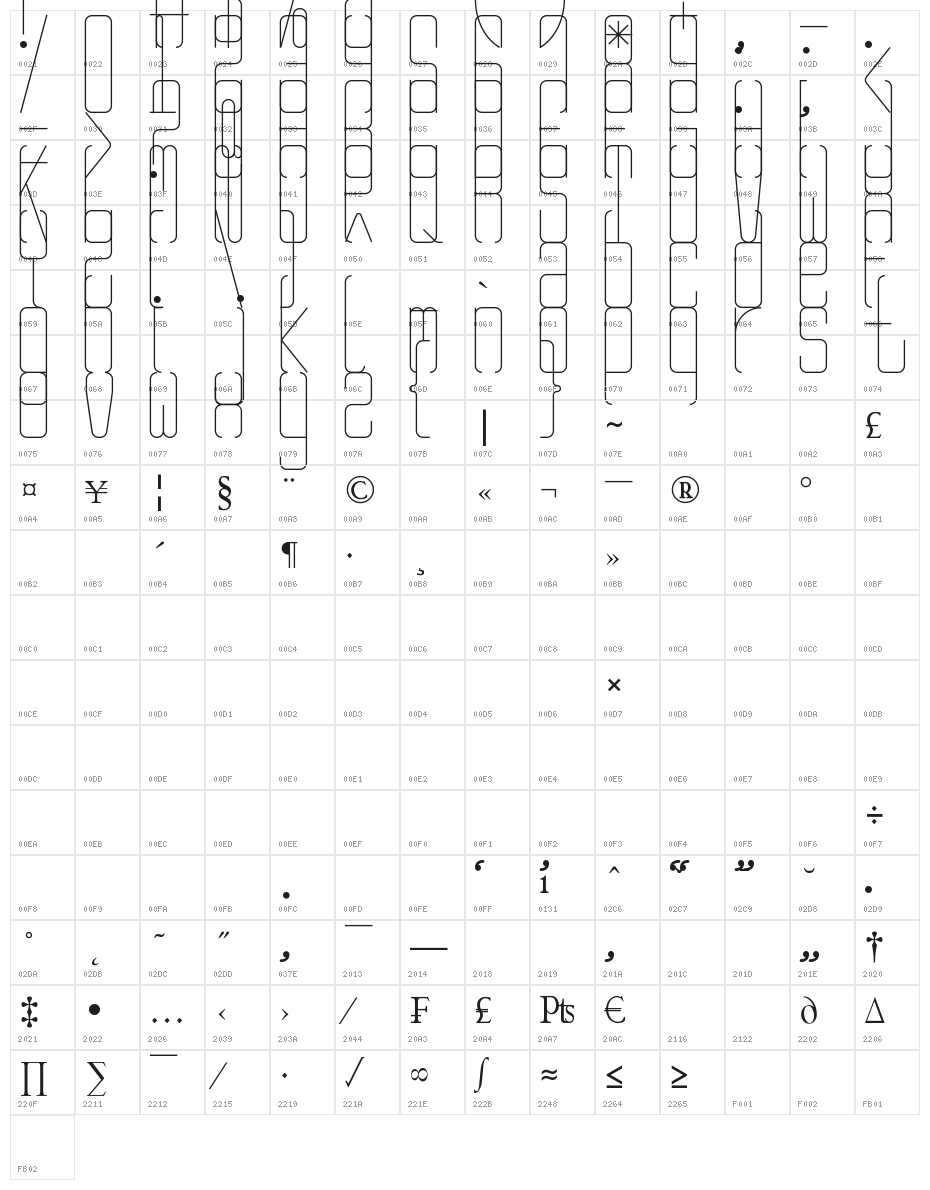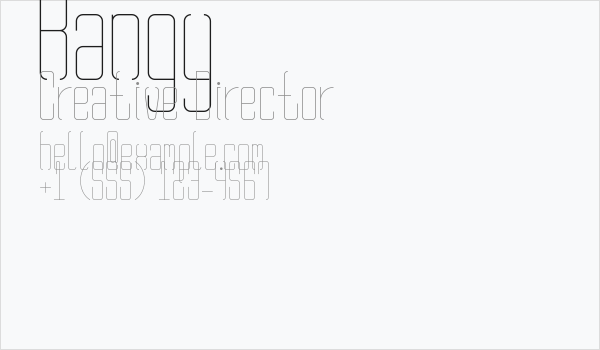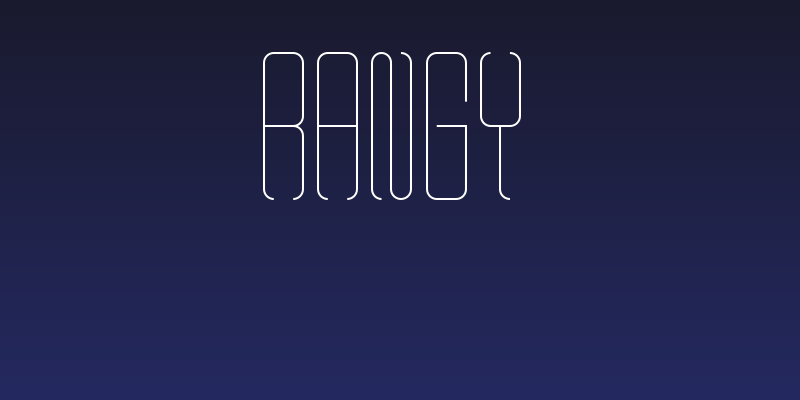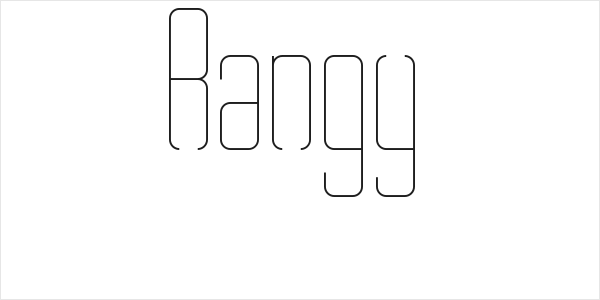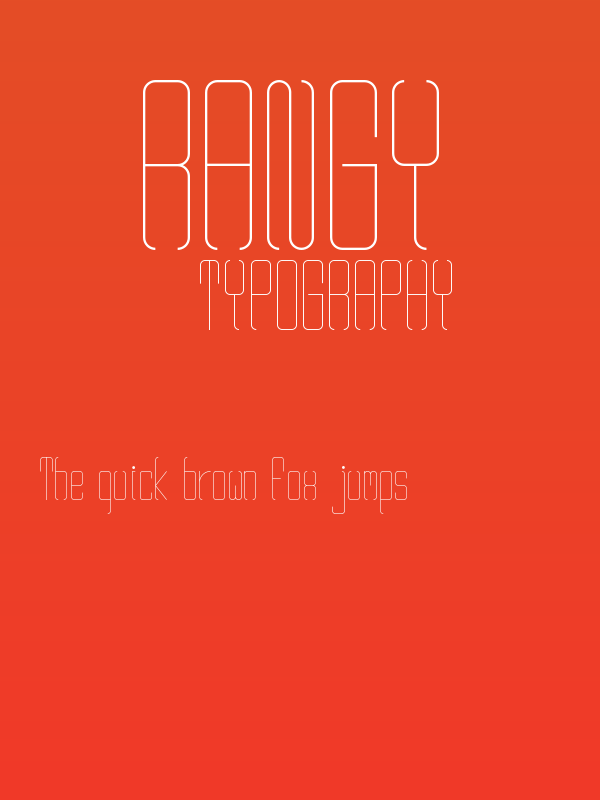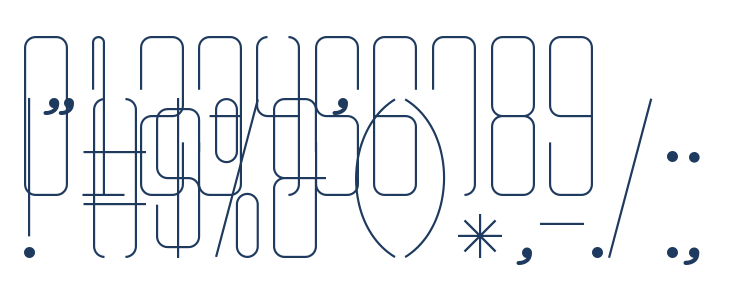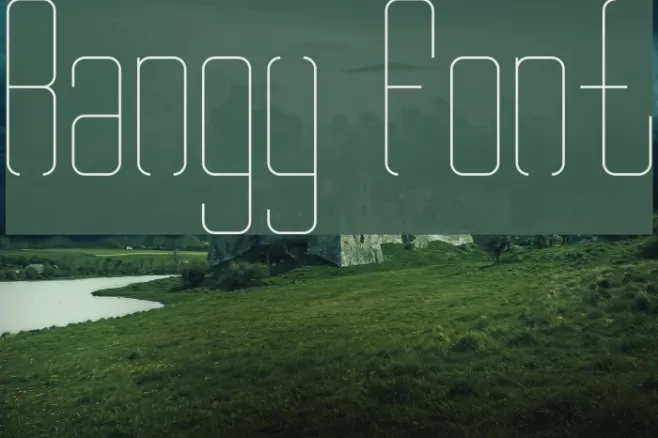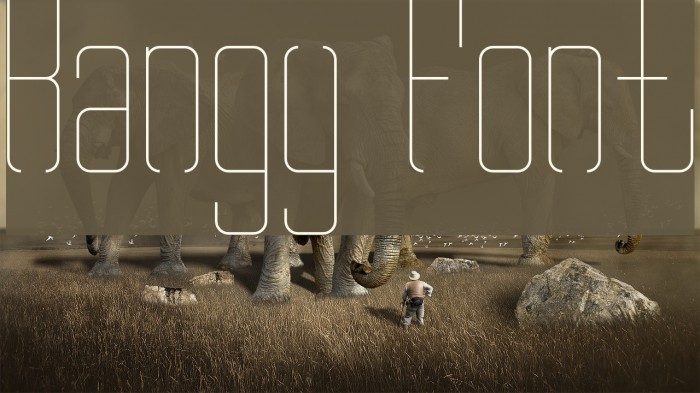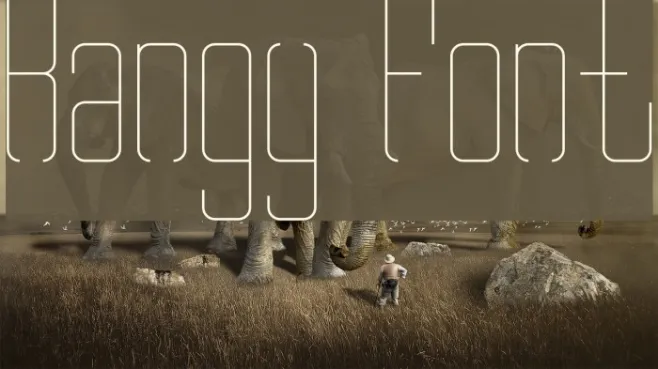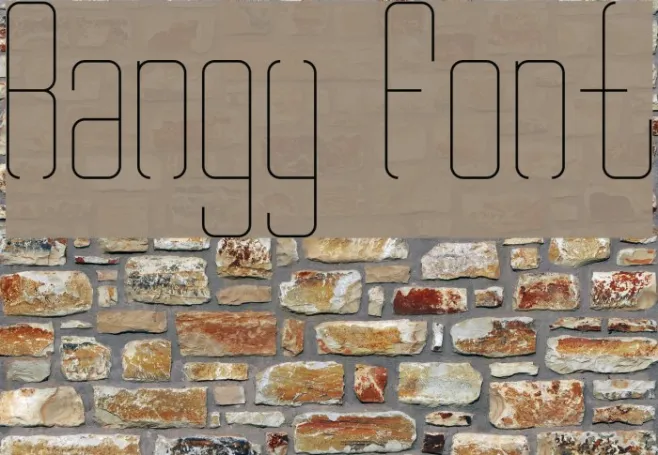
Rangy Font
Rangy Description
This font features an ultra-modern and minimalist design, characterized by its extremely thin lines and geometric shapes. The characters are elongated and have a futuristic appeal, with a consistent vertical alignment that gives a sense of height and elegance. The uppercase and lowercase letters maintain a uniform width, creating a harmonious and balanced look. The numerals and special characters follow the same design principles, ensuring a cohesive appearance across all glyphs. The font's unique style makes it stand out, offering a sleek and sophisticated aesthetic.
RANGY UPPERCASE
RANGY LOWERCASE
RANGY OTHER CHARS